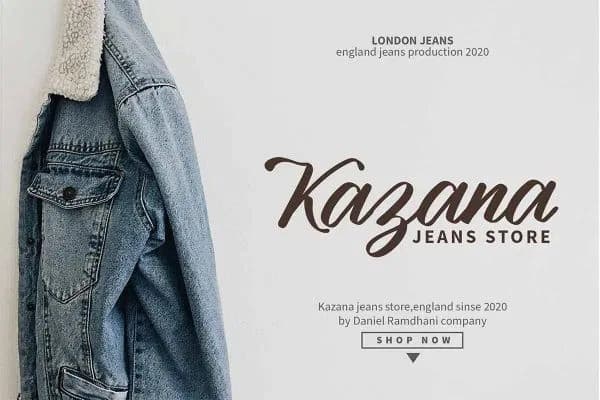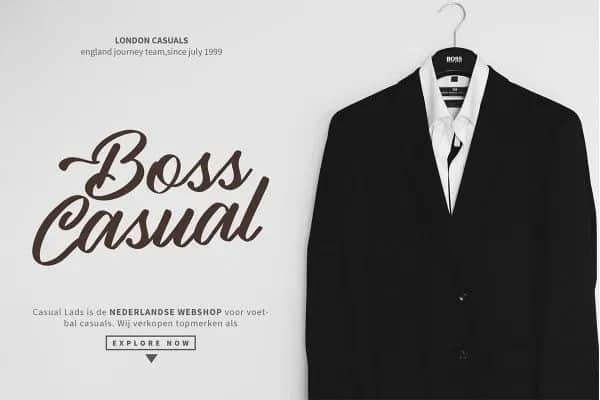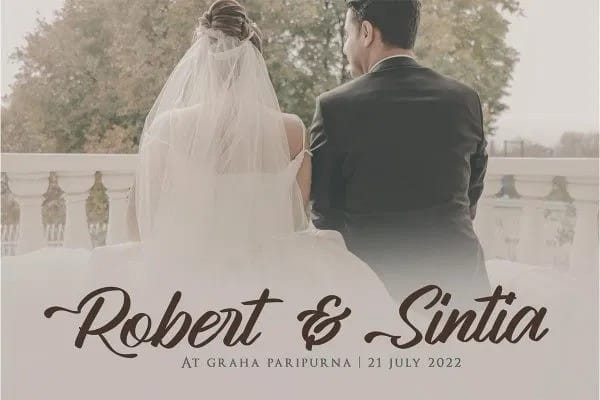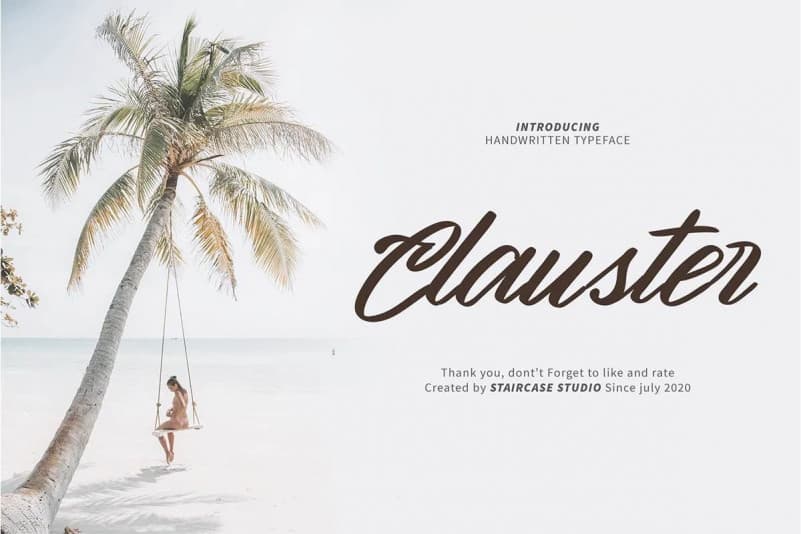
Clauster Brush Font is a hand-drawn brush script and unique character! Made from font designer named StairCase Studio. A collection of letters and numbers suitable your projects also great for Logotype, Branding Design, Logo Design, Digital Lettering Arts, T-Shirt/Apparel, Poster, Magazine, Signs, Advertising Design, and any design needs.